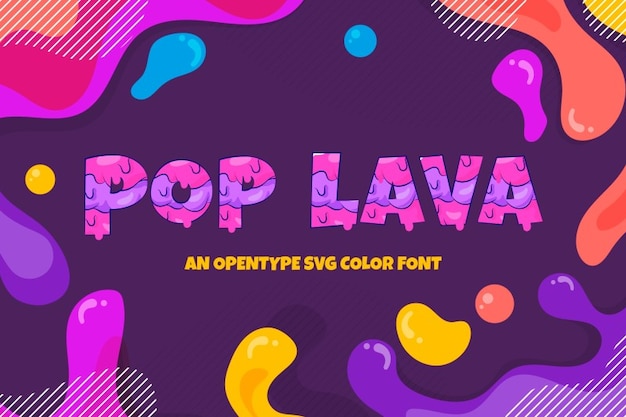
The font that ignites your designs with the swirling energy of dripping lava and psychedelic vibes! Its design captures the essence of fluid motion with a burst of vibrant colors. Perfect for projects seeking an electrifying and trippy atmosphere. Get ready to set your designs ablaze with the fiery charm of "Pop Lava"!